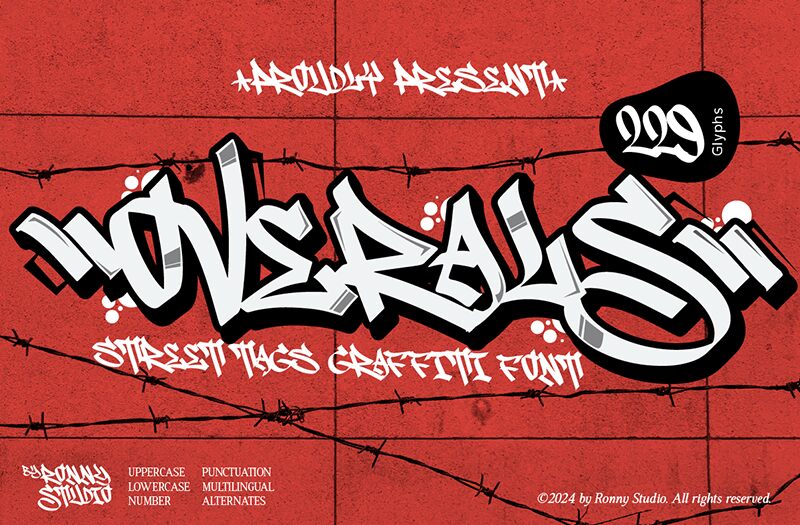
Overals font by Ronny Studio is a graffiti-inspired typeface that captures urban energy and edgy expression. Featuring bold lines and street art influences, this contemporary font offers a fresh appeal and dynamic vibe.
Explore its creative potential for album covers, urban-themed posters, skate park signage, magazines, website headers, banners, T-shirt prints, branding designs, comics text boxes, icons in web design projects. Plus it’s free!